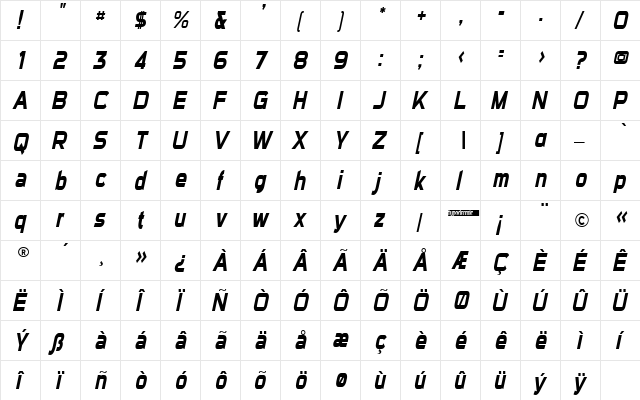
Sui Generis Condensed Italic Font Preview
| Foundry | Typodermic |
Design Context for Sui Generis Condensed Typeface
Sui Generis Condensed offers clean, dependable letterforms without strong stylistic allegiance, making it a practical choice for designers who need flexibility. The dynamic lean of this cut emphasises speed and emphasis in any layout. The condensed width makes it efficient for tight spaces without sacrificing legibility.